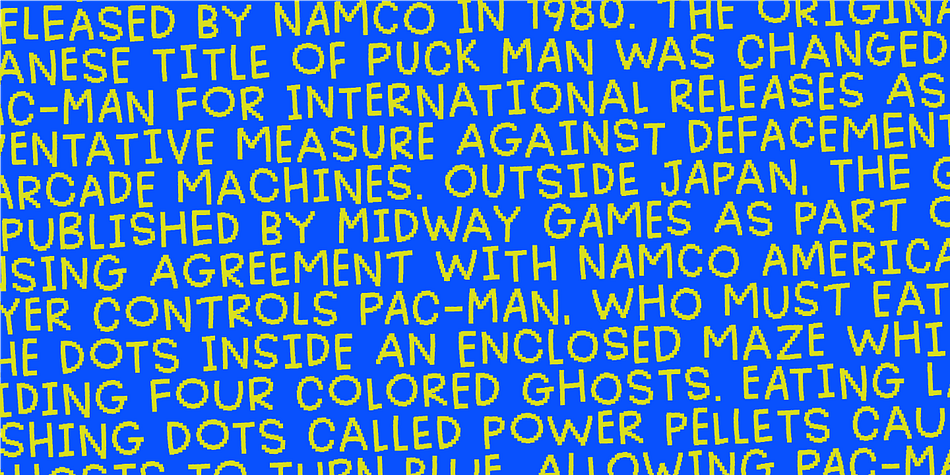
PIXEL PANTS
Designed by Jakob Fischer, Pixel Pants is a pixel and retro font family. This typeface has four styles and was published by Pizzadude.dk.
Pixel Pants is my wanna-be 1980-ies pixelfont. Well, it really looks like a pixel font, but it’s kid of fake - at larger sizes you will notice the wacky and uneven lines, but it sure do bring back memories of the 80-ies!
I’ve made 5 different versions of each letter - just to break the monotony of the usual pixel font!